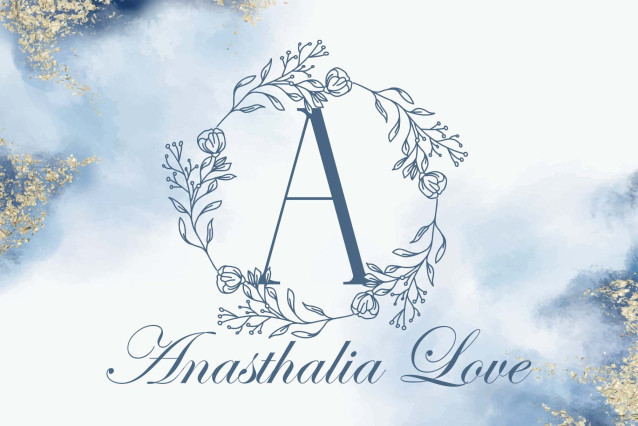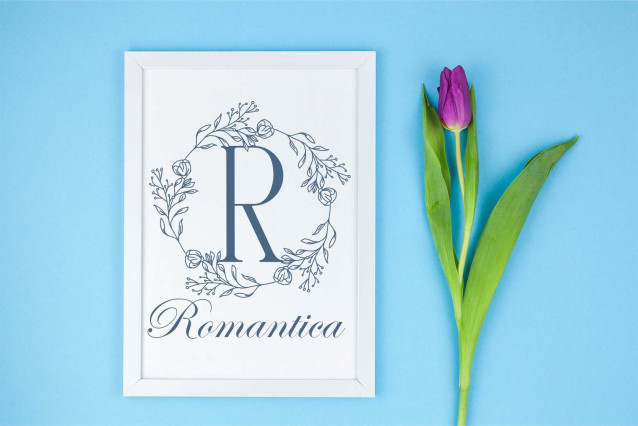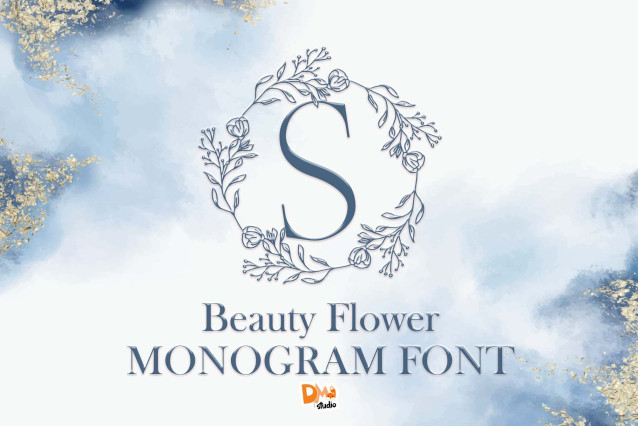
Beauty Flower Monogram Font
Beauty Flower Monogram is a sophisticated set of ornamental initials featuring luxurious floral embellishments intertwined with each letterform. Designed to evoke beauty and grace, this monogram style is ideal for upscale invitations, personal branding, custom gifts, home decor, and elegant logos. With its ornate yet balanced floral flourishes, this monogram collection brings a classic romantic feel to any project.